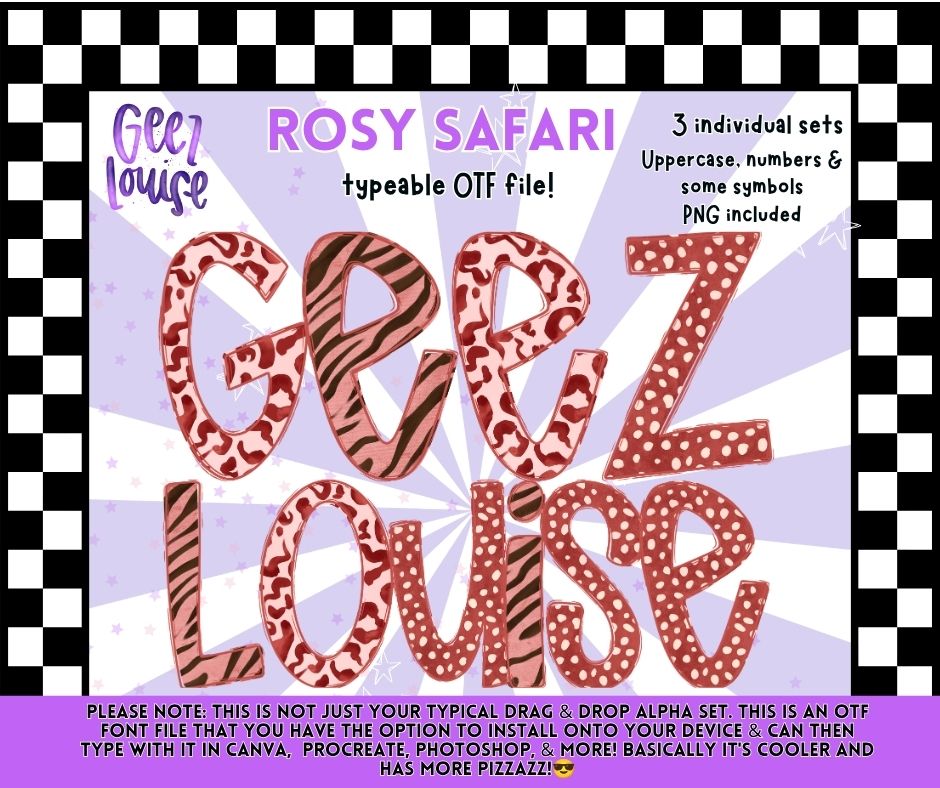
Rosy Safari Alpha Font Bundle OTF | Pink Animal Print Alphabet PNG | Typeable Font Bundle
πΈπ Meet Rosy Safari Alpha Bundle, a beautiful collection of 3 coordinating animal print alphabets in warm rosy pink tones. Featuring leopard, tiger, and dotted safari-inspired patterns, this bundle is perfect for boutique apparel, Valentine's projects, western fashion, girly branding, and everyday creative designs.
Included Styles:
πΈ Rosy Leopard
π
Rosy Tiger Stripe
π€ Rosy Safari Dots